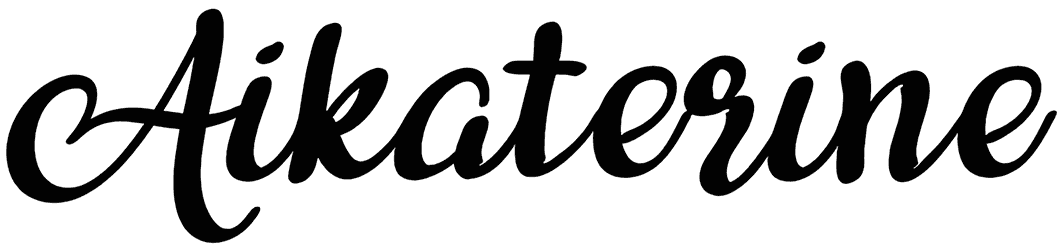
Aikaterine Font
Charming and contemporary in appearance, Aikaterine is a script calligraphy font that may be put to good use for event and greeting cards, signage, and anywhere else you need a handwritten look.
Despite the absence of some numerals, this passionate font might be the savior that finally gets people to pay attention to it. You can now get this font for free from RB’s font collection, along with many others like it.